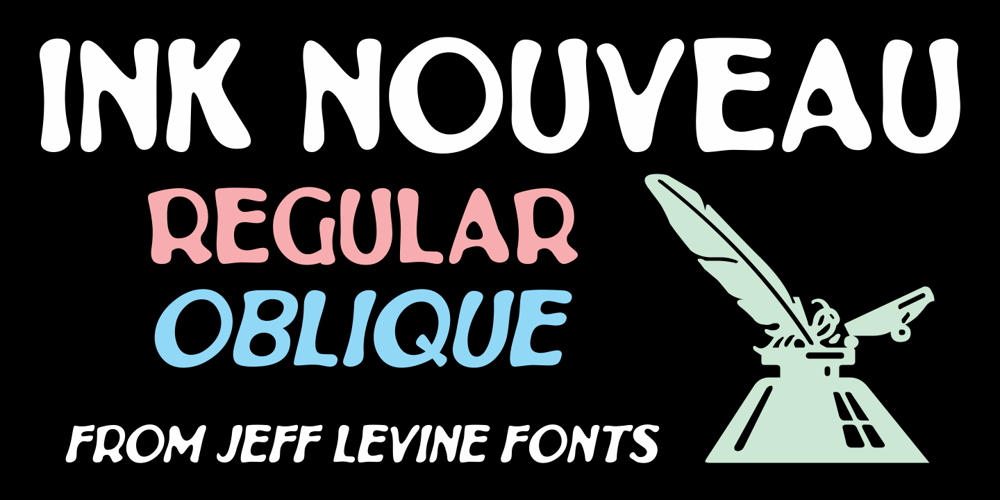
Ink Nouveau JNL Font Family was designed by Jeff Levine and published by Jeff Levine. Ink Nouveau JNL contains 2 styles and family package options. Ink Nouveau JNL is loosely based on the hand lettered title from a lobby card for the 1927 film “The Taxi Dancer” and is available in both regular and oblique versions. The design emulates a hastily or sloppily drawn Art Nouveau display font.